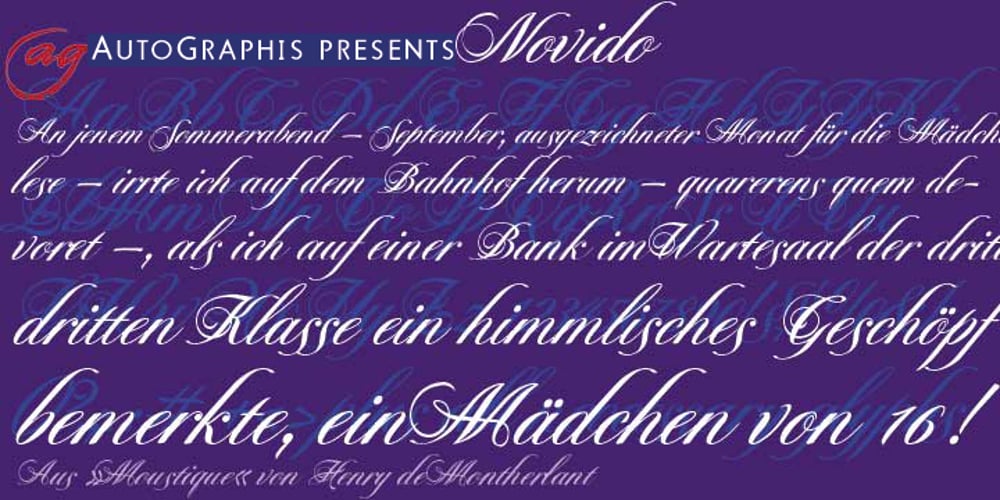
Novido
Novido font
Novido Font Family was designed by Gert Wiescher and published by Autographis. Novido contains 1 styles and family package options. Novido is a new very elegant – extremely slanted – joining script with long ascenders and descenders. It is the male partner of Novita which is the less elaborate female partner of the pair. Great job! Congratulations Ladies!